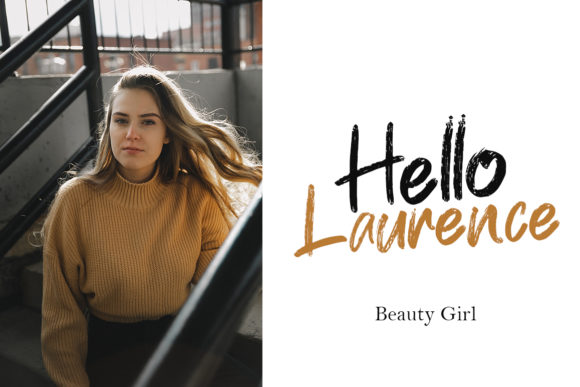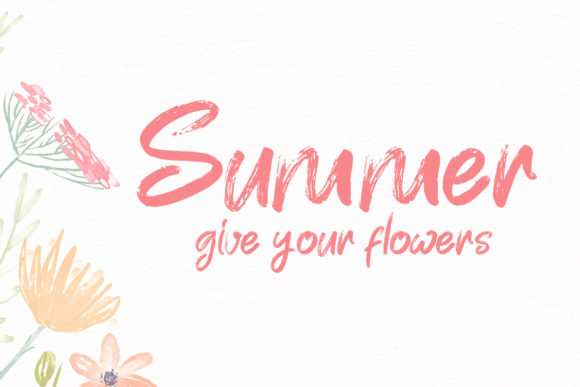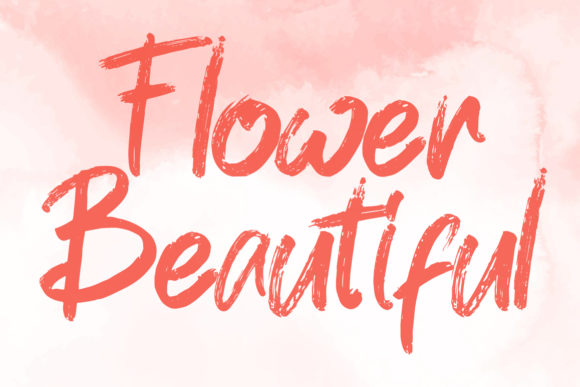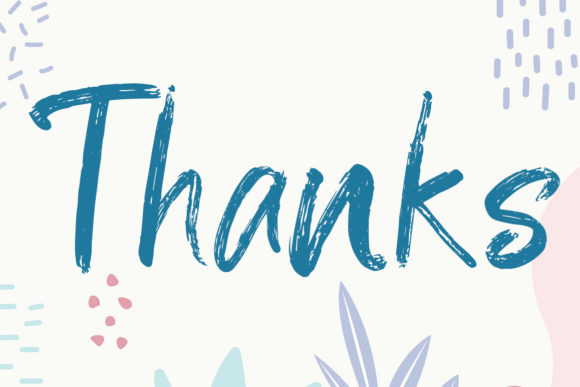
Introducing Brusy Font: The Ultimate Brushed Display Font for Stunning Designs
Are you tired of using the same old fonts in your designs? Do you want to add a touch of boldness and friendliness to your creations? Look no further than Brusy Font, a stunning brushed display font that’s sure to take your designs to the next level. In this article, we’ll dive into the world of Brusy Font, exploring its features, benefits, and uses, as well as provide tips and inspiration for designers and crafters.
What is Brusy Font?
Brusy Font is a beautifully crafted brushed display font that’s incredibly bold and friendly. With its unique, hand-brushed texture, this font is perfect for adding a personal touch to your designs. Whether you’re working on a logo, poster, or social media graphic, Brusy Font is sure to make your design come alive.
Key Features of Brusy Font
- Bold and Friendly: Brusy Font is designed to make a statement. Its bold, brushed texture gives it a friendly and approachable feel that’s perfect for designs that need to stand out.
- Highly Versatile: Brusy Font is incredibly versatile, making it suitable for a wide range of designs, from logos and posters to social media graphics and more.
- Easy to Read: Despite its bold texture, Brusy Font is surprisingly easy to read, making it perfect for designs that need to communicate a message clearly.
- Unique Texture: The hand-brushed texture of Brusy Font gives it a unique, organic feel that’s sure to add a touch of personality to your designs.
Benefits of Using Brusy Font
- Adds Personality: Brusy Font adds a touch of personality to your designs, making them more engaging and memorable.
- Stand Out: With its bold, brushed texture, Brusy Font is sure to make your design stand out from the crowd.
Uses of Brusy Font
- Logos: Brusy Font is perfect for creating bold, eye-catching logos that make a statement.
- Posters: Add a touch of personality to your posters with Brusy Font, making them more engaging and memorable.
- Social Media Graphics: Use Brusy Font to create stunning social media graphics that stand out from the crowd.
- Invitations: Add a touch of elegance to your invitations with Brusy Font, making them perfect for special occasions.
Tips for Using Brusy Font
- Experiment with Colors: Brusy Font looks amazing in a variety of colors, so don’t be afraid to experiment and find the perfect hue for your design.
- Play with Texture: Add an extra layer of texture to your design by combining Brusy Font with other textures and patterns.
- Keep it Simple: Don’t overcomplicate your design. Brusy Font is bold and eye-catching, so keep your design simple and clean to let the font shine.
Inspiration and Examples
- Logo Design: Use Brusy Font to create a bold, eye-catching logo that makes a statement.
- Poster Design: Add a touch of personality to your posters with Brusy Font, making them more engaging and memorable.
- Social Media Graphic: Use Brusy Font to create stunning social media graphics that stand out from the crowd.